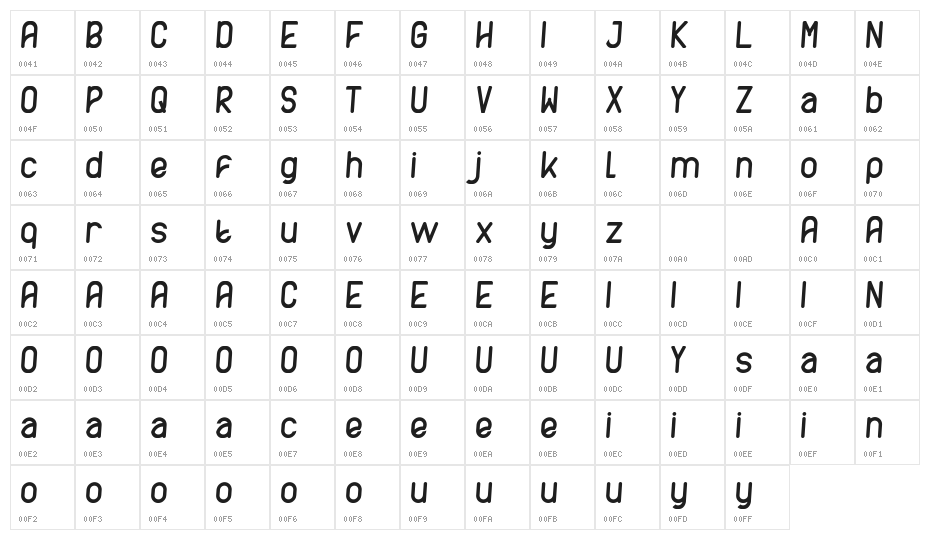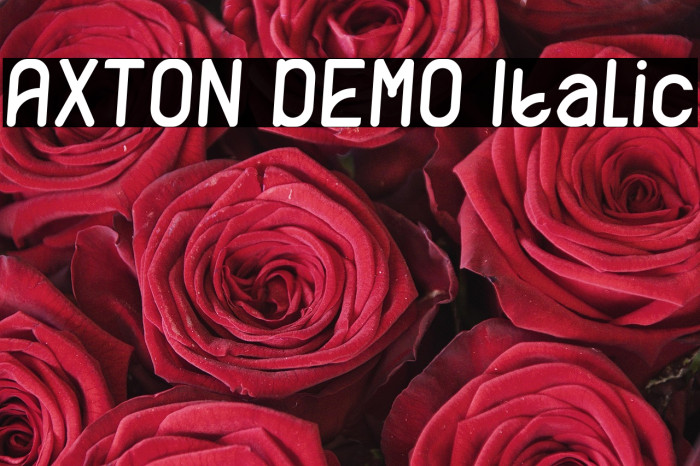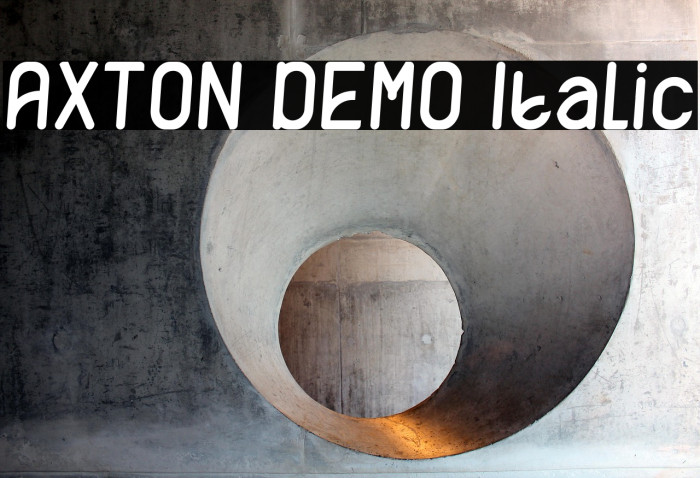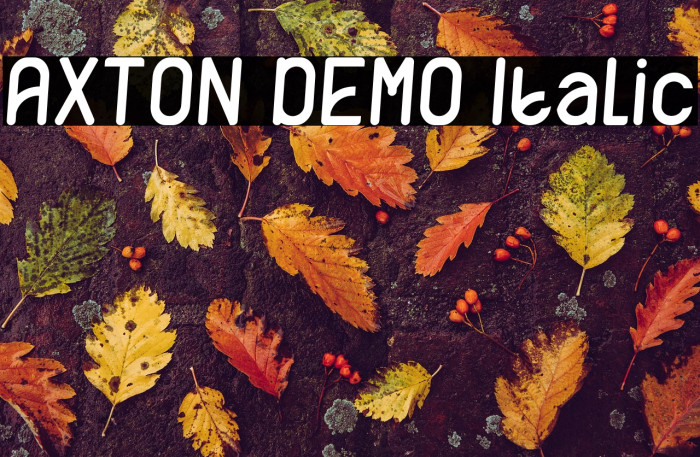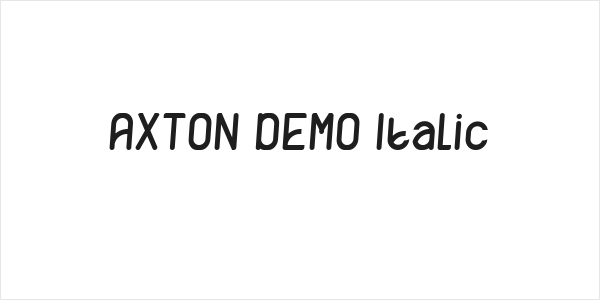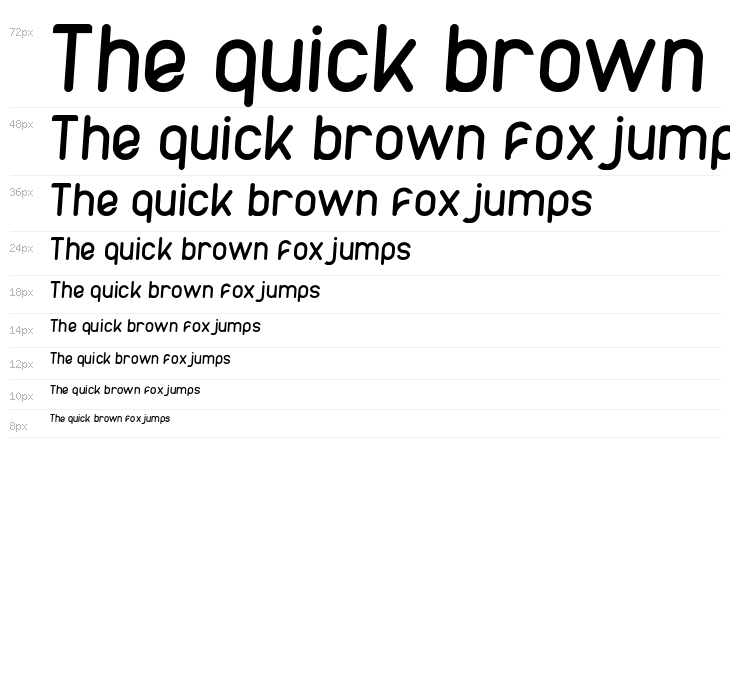
AXTON DEMO Italic Font
AXTON DEMO Italic Description
This font features a playful and modern design with a slight italic slant, giving it a dynamic and energetic appearance. The characters are rounded and smooth, with a consistent stroke width that maintains readability. The uppercase and lowercase letters are well-proportioned, and the numerals are clear and distinct. The special characters are designed to match the overall style, ensuring a cohesive look across all text elements. This font is versatile, suitable for both digital and print media, and can add a touch of personality to any project.
Use CaseHeadlines, Logos, Digital content
Proposed ProjectsIdeal for branding, advertising, children's books, and creative digital content.